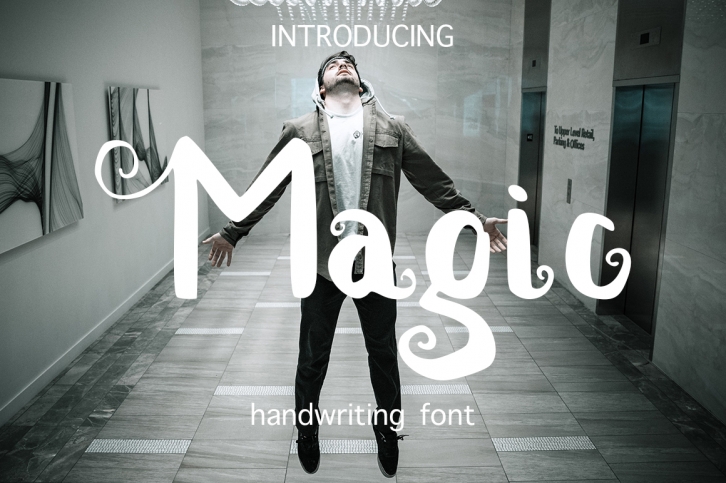
Magic is a well-rounded hand drawn script font created with round brush and ink, giving it an organic and free-flow appeal. This font looks great for branding purposes, but is friendly enough to use across a wide range of projects.